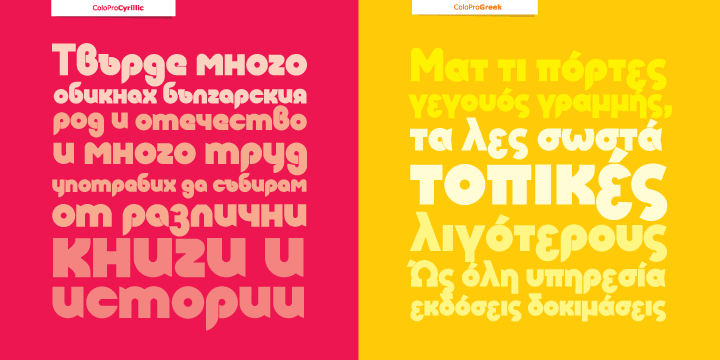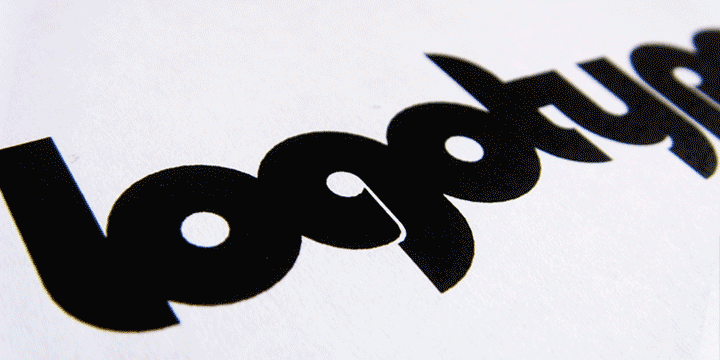
Colo Pro is a custom font which is applicable for any type of graphic design - web, print, motion graphics, etc., and it is perfect for t-shirts and other items.